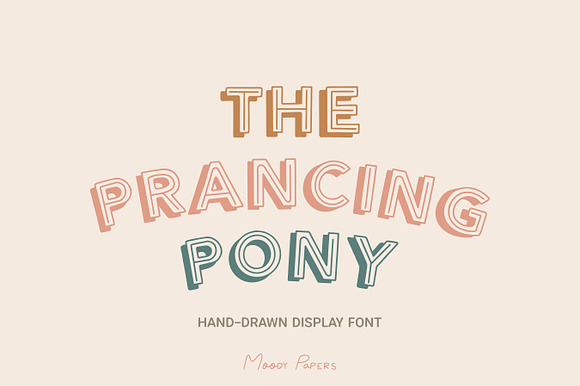
The Prancing Pony Font
The prancing Pony Display Font ✨ Super cute and awesome hand-drawn SVG font.
The Prancing Pony Font by MoodyPapers fits naturally into Branding, posters, packaging, typography.